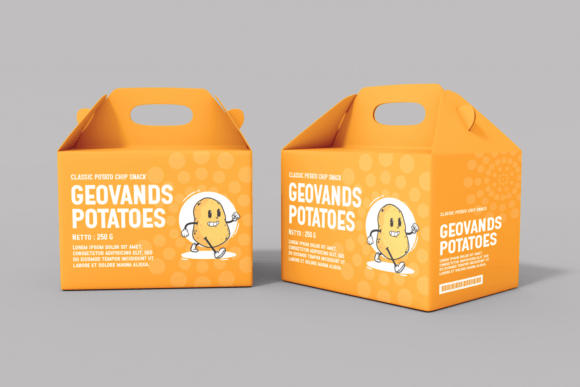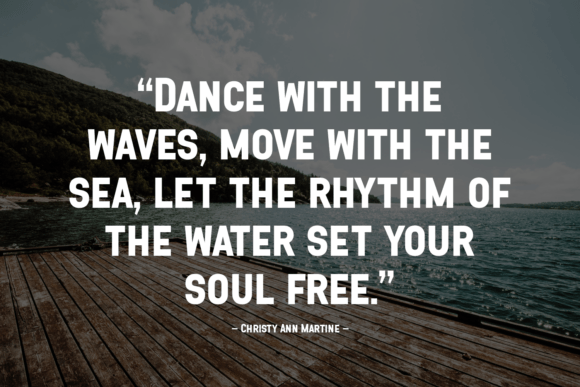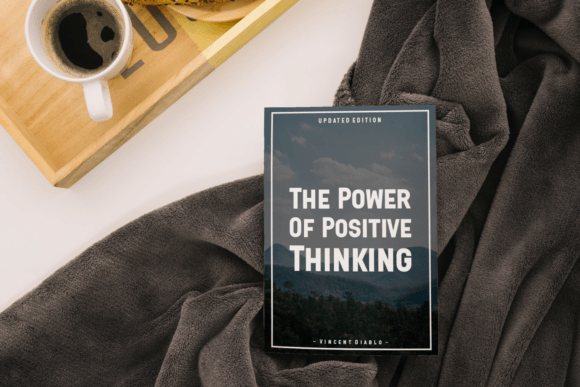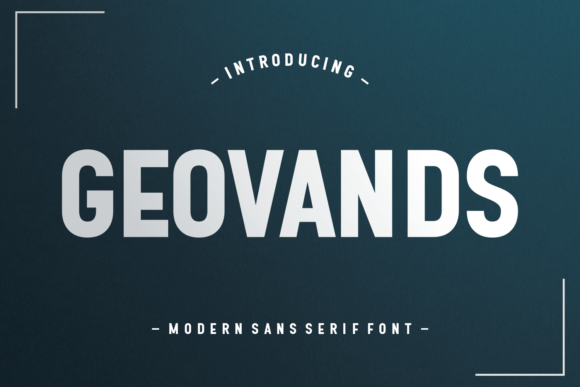
Introducing Geovands Font: The Ultimate Modern Sans Serif for Designers and Crafters
In the world of typography, fonts play a crucial role in conveying messages, expressing emotions, and creating a lasting impression. For designers and crafters, finding the right font can be a daunting task, especially when it comes to creating visually appealing and effective designs. This is where Geovands Font comes into play – a modern sans serif font that has been making waves in the design community with its clean lines, sleek design, and friendly feel.
What is Geovands Font?
Geovands is a contemporary sans serif font that boasts a clean and minimalist aesthetic. Its sleek design makes it perfect for a wide range of applications, from websites and logos to print materials and digital media. The font’s simplicity and versatility have made it a favorite among designers and crafters who are looking for a modern and professional look.
Key Features of Geovands Font
- Clean Lines: Geovands features clean lines and a minimalist design that makes it easy to read and understand.
- Sleek Design: The font’s sleek design gives it a modern and sophisticated feel, making it perfect for professional and corporate designs.
- Easy to Read: Geovands is optimized for readability, making it easy on the eyes and perfect for body text, headings, and titles.
- Friendliness: The font has a friendly and approachable feel, making it perfect for designs that require a more personal touch.
- Versatility: Geovands is a versatile font that can be used for a wide range of applications, from websites and logos to print materials and digital media.
Why Choose Geovands Font?
So, why should designers and crafters choose Geovands Font over other fonts? Here are a few compelling reasons:
- Universal Appeal: Geovands has a universal appeal that makes it perfect for designs that require a broad audience reach.
- Professional Look: The font’s sleek design and clean lines give it a professional look that is perfect for corporate designs, logos, and branding.
- Easy to Pair: Geovands is easy to pair with other fonts, making it a great choice for designers who want to create a unique and harmonious typography.
- Highly Legible: The font is highly legible, even at small sizes, making it perfect for body text and captions.
Use Cases for Geovands Font
Geovands Font is a versatile font that can be used for a wide range of applications, including:
- Websites: Use Geovands as a primary font for your website to create a modern and professional look.
- Logos: Geovands is perfect for logos, branding, and corporate identity designs.
- Print Materials: Use Geovands for print materials such as brochures, flyers, and business cards.
- Digital Media: Geovands is perfect for digital media, including social media graphics, presentations, and videos.
In conclusion, Geovands Font is a modern sans serif font that offers a unique combination of clean lines, sleek design, and friendly feel. Its versatility and simplicity make it a great choice for both professional and casual projects. Whether you’re a designer or crafter, Geovands Font is a great addition to your typography arsenal. So, why not give it a try and see how it can elevate your designs to the next level?
With Geovands Font, you can create stunning designs that are both visually appealing and effective. So, go ahead and explore the world of typography with Geovands Font – the ultimate modern sans serif font for designers and crafters.